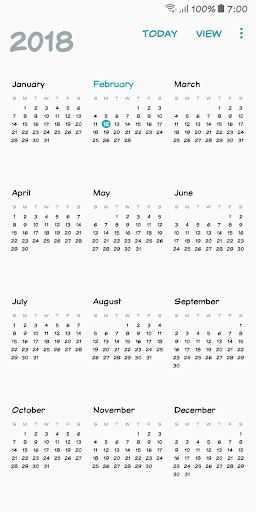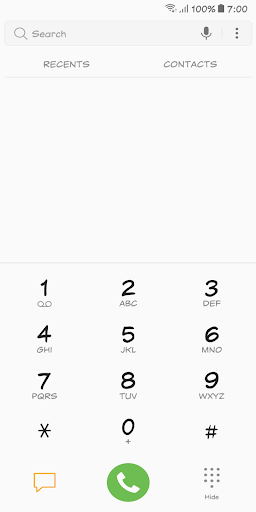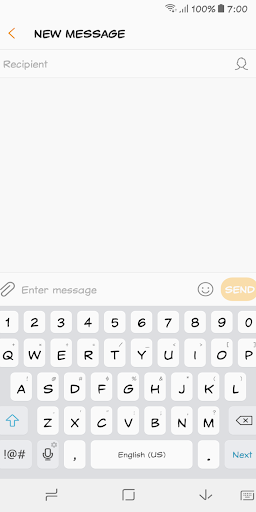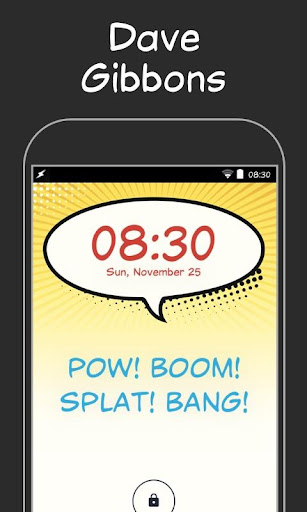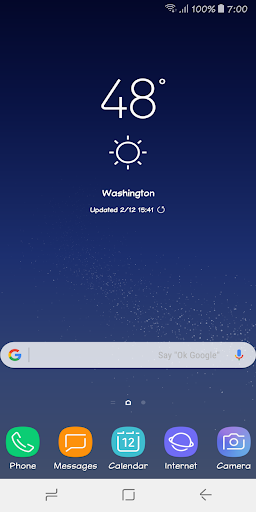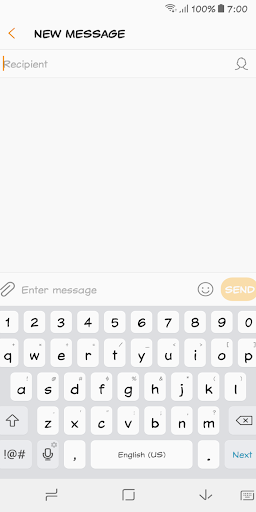
Based on lettering of artist Dave Gibbons, this font is a perfect way to add some comic book style to your life. If your device needs some visual kick, live a little and choose Dave Gibbons™ as your go-to font choice.